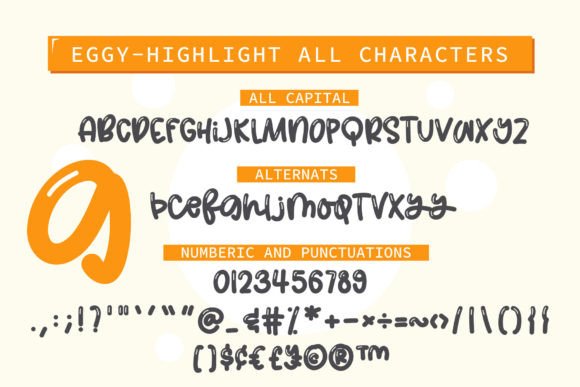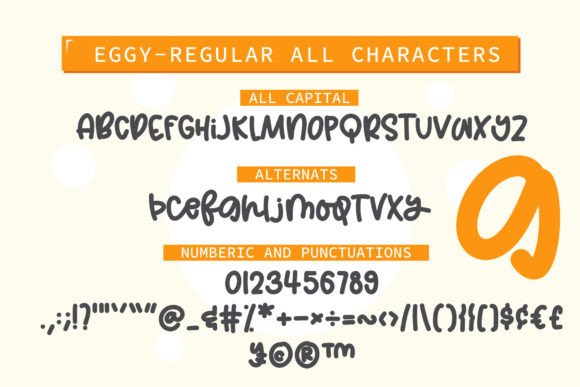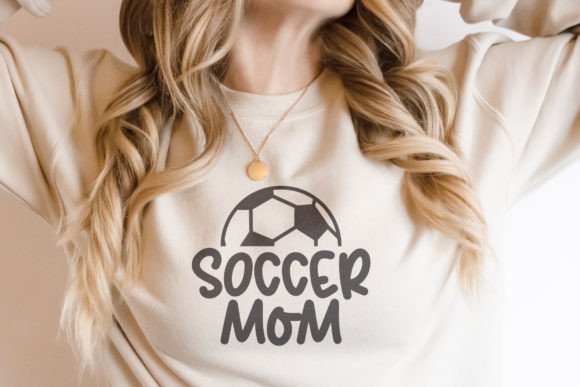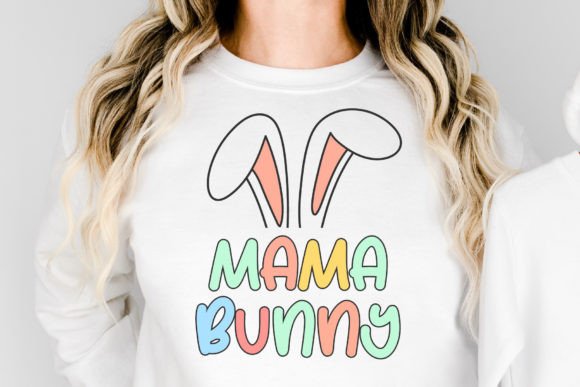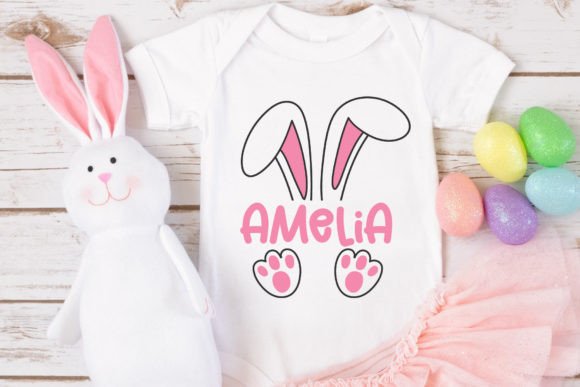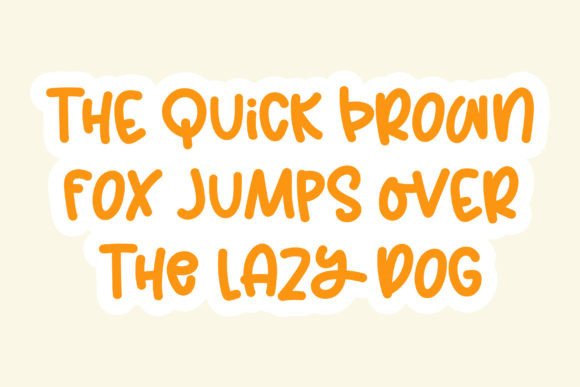
Discover the Charm of Eggy Font: A Sweet and Versatile Display Font
Eggy Font: A Personal Review
- ✨ Incredibly versatile style: Eggy Font is perfect for a wide range of design projects, from fun wedding invitations to beautiful stationery art and eye-catching social media posts.
- ✅ PUA encoded for easy access: The font comes with PUA encoding, which means you can effortlessly access all glyphs and swashes, making it easy to add a personal touch to your designs.
- 💕 Cute and playful vibe: Eggy Font has a unique charm that adds a touch of whimsy to any design, making it perfect for creative projects that require a bit of personality.
While Eggy Font is an amazing display font, there are a few things to keep in mind:
- ⚠️ Legibility at small sizes: Like many script fonts, Eggy Font can be a bit tricky to read at small sizes. It’s best used for headlines, titles, or large display text.
- 🤔 Limited use for body text: Due to its playful and cursive nature, Eggy Font isn’t the best choice for body text or long paragraphs.
The Story Behind Eggy Font
Eggy Font was created with love and care by a talented font designer who wanted to craft a font that would bring joy and playfulness to designers and crafters. The designer’s inspiration came from a mix of classic script fonts, modern typography, and a dash of whimsy. The result is a font that’s both sweet and versatile, perfect for a wide range of creative projects.
| Font Name | Eggy Font |
| Author | BitongType |